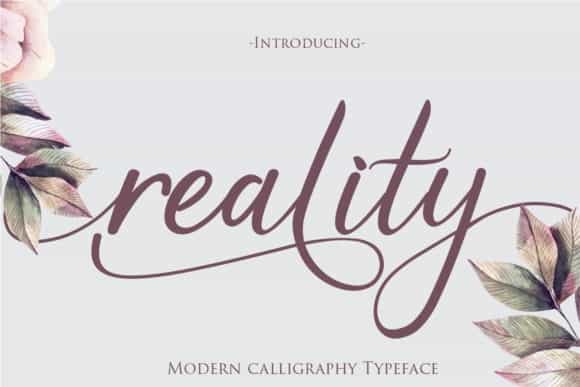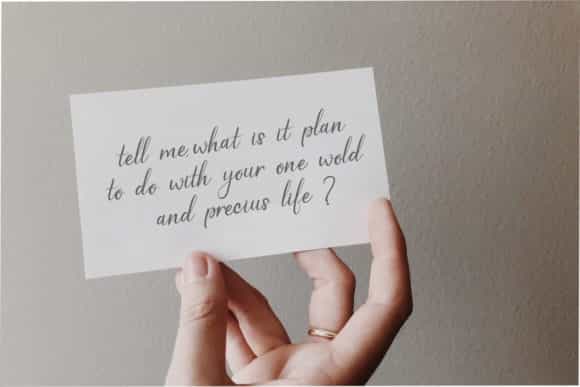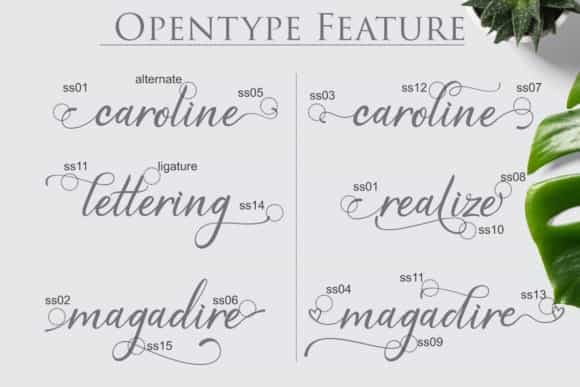
The Reality Font is the next calligraphy manuscript, modern and classic, handwritten in a soft way, perfect for your next designs such as logos, printed quotes, invitations, cards, product packaging, headers, and everything else about your imagination.